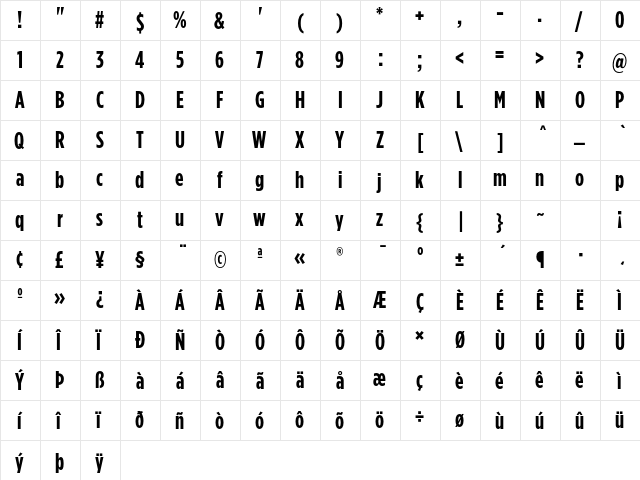
Gotham Condensed Bold
| Foundry | Hoefler & Frere-Jones |
| Designer | Hoefler & Frere-Jones |
Design Context for Gotham Condensed Typeface
Gotham Condensed is a composed and adaptable typeface that performs quietly and consistently across a wide range of design contexts. The heavy weight commands attention and anchors typographic hierarchies. Its narrow stance lets it pack a punch even in space-constrained designs.
Pro Tip: Use Gotham Condensed in both headline and body roles to test its range before committing to a single application.